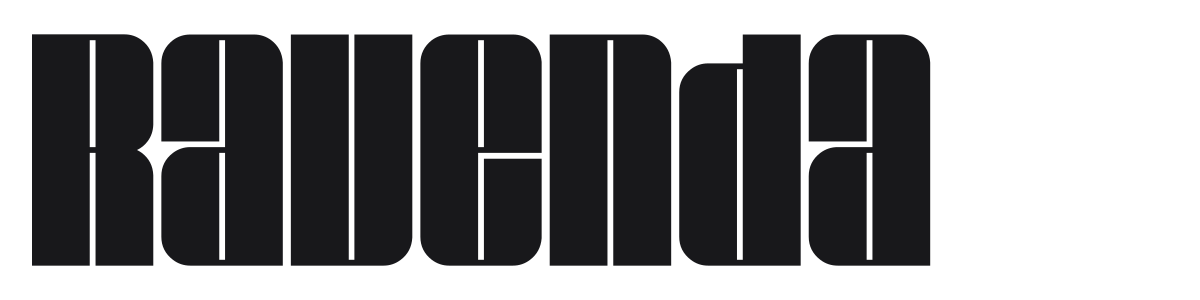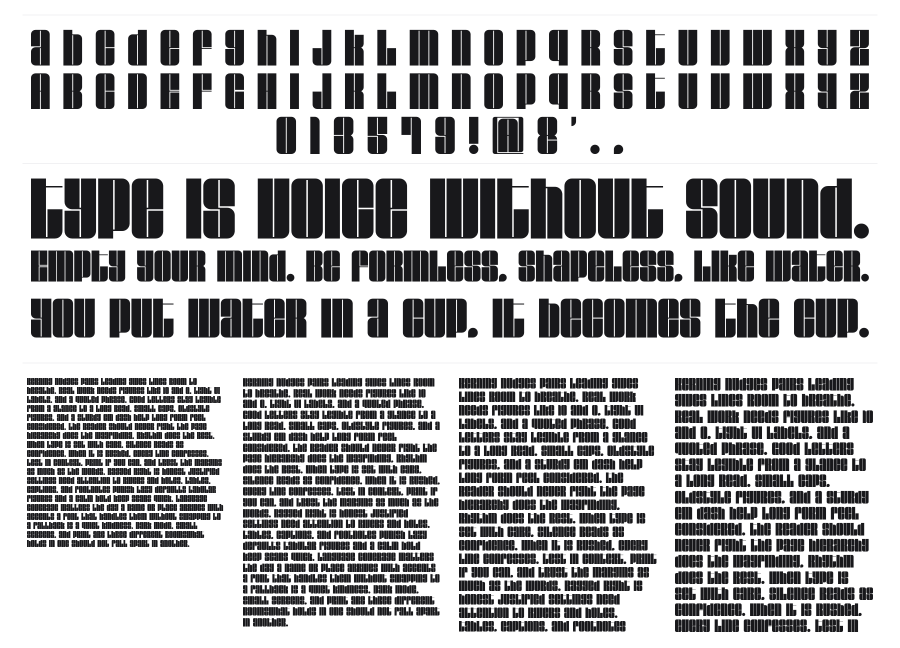
Ravenda
Ravenda is an ultra-bold condensed display sans with a distinctive retro personality drawn from 1970s headline typography. Internal stroke slits and slightly rounded corners give each character a segmented, almost architectural quality that sets it apart from plain heavy grotesques. Best used large, where its dense weight and tight spacing create maximum visual impact.